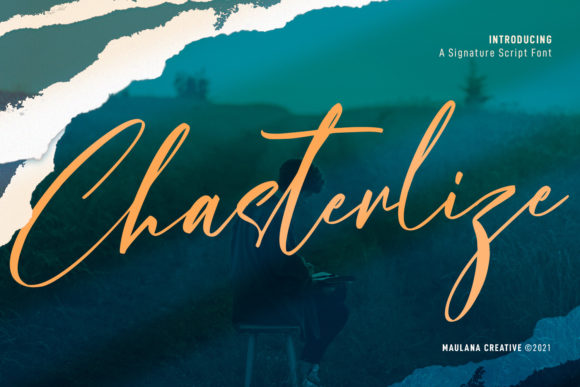
Chasterlize Script: Beyond the Signature Style
In the world of modern typography, finding a typeface that balances personality with professionalism is a constant challenge. We often see fonts that look beautiful in isolation but fail to perform in real-world applications, or they lack the character needed to make a brand stand out. This is where Chasterlize Script enters the conversation. It is a slanted signature script font, but unlike many of its competitors, it offers a refreshing level of versatility that extends far beyond simple autographs. With its regular contrast strokes, fun characters, and distinct ligatures, this font bridges the gap between a casual handwritten aesthetic and a polished, commercial-grade design asset.
The Anatomy of a Versatile Script
At first glance, Chasterlize Script feels familiar—it possesses the flowing, connected quality we expect from a signature font. However, upon closer inspection, the technical execution reveals why it functions so well for diverse projects. The "regular contrast strokes" refer to the variation in thickness as the pen moves across the page. Unlike monoline scripts, which can feel static, this contrast adds a dynamic rhythm to the text. It mimics the natural pressure applied when writing with a fountain pen or brush, giving the typography an organic, human touch.
Furthermore, the "fun characters" and unique ligatures are not just decorative additions; they are functional tools for designers. Ligatures solve the problem of awkward connections between specific letters. In Chasterlize, these connections are optimized to flow seamlessly, preventing the text from looking disjointed. When you toggle on OpenType features, you can access alternate characters that change the capitalization style or the ending tails of words. This allows you to customize the font to fit the exact vibe of your project, whether you need something playful for a children’s brand or something elegant for a wedding stationery suite.
Strategic Applications for Branding and Marketing
For entrepreneurs and small business owners, typography is a silent ambassador for the brand. Chasterlize Script is particularly effective in logo design because it commands attention without overwhelming the viewer. If you are building a personal brand—perhaps as a coach, photographer, or influencer—this typeface creates an immediate sense of authenticity. It suggests that there is a human behind the business, fostering a connection that rigid corporate fonts often fail to achieve.
Consider the application in social media graphics. On platforms like Instagram or Pinterest, where visual noise is high, a clean, slanted script can cut through the clutter. Use Chasterlize for headlines on quote cards or sale announcements. Its high legibility at moderate sizes ensures that your message is understood instantly, while the slanted angle suggests movement and energy, encouraging the user to stop scrolling.
Moreover, in packaging design, the font shines. Imagine a coffee bag label, a skincare bottle, or artisanal packaging. Chasterlize Script adds a layer of perceived value, often associated with handcrafted or premium products. It helps establish a visual hierarchy where the brand name (set in the script) stands out against the product details (set in a complementary serif or sans serif font).
Publishing and Editorial Design
While scripts are traditionally reserved for short text, Chasterlize challenges this norm with its readability. It is an excellent choice for editorial design, specifically for book titles and chapter headings. In the publishing industry, the cover is the first sales pitch. A slanted script like Chasterlize conveys genre expectations effectively—perfect for romance, lifestyle, or modern fiction. It provides a sophisticated aesthetic that rivals many high-end serif fonts while maintaining a distinct personality.
For movie titles or YouTube thumbnails, the font’s bold presence ensures that the title remains the focal point. The slant creates a sense of forward momentum, which is psychologically beneficial for storytelling. It implies action and progression. Even for longer text blocks, such as introductory paragraphs in a magazine spread, Chasterlize can work if paired correctly with a neutral body font and given generous leading.
Technical Considerations and Pairing Strategies
Choosing a premium font is an investment, and ensuring it fits your ecosystem is vital. Chasterlize Script is a creative font that pairs best with grounded, geometric typefaces. To maintain readability, avoid pairing it with other decorative or handwritten fonts. Instead, look for a clean sans serif font with uniform stroke widths, such as Montserrat, Lato, or Poppins. This contrast allows the script to take center stage for headlines while the sans serif handles the heavy lifting for body copy.
When evaluating the font for your project, consider the following practical steps:
- Test the Ligatures: Type out words specific to your industry to see how the letterforms connect. Check for any awkward overlaps that might require kerning adjustments.
- Evaluate the "Slant": Because it is an italicized or slanted style, ensure it doesn't create a sense of imbalance in your layout. It works best when anchored by vertical elements, such as image edges or rectangular text boxes.
Ultimately, Chasterlize Script is more than just a signature font. It is a robust tool for web design, print, and digital marketing. Its combination of regular contrast strokes and playful alternates makes it a reliable choice for anyone looking to inject warmth and professionalism into their visual communications. Whether you are designing a wedding invitation or a corporate brand deck, this typeface offers the flexibility to get the job done with style.